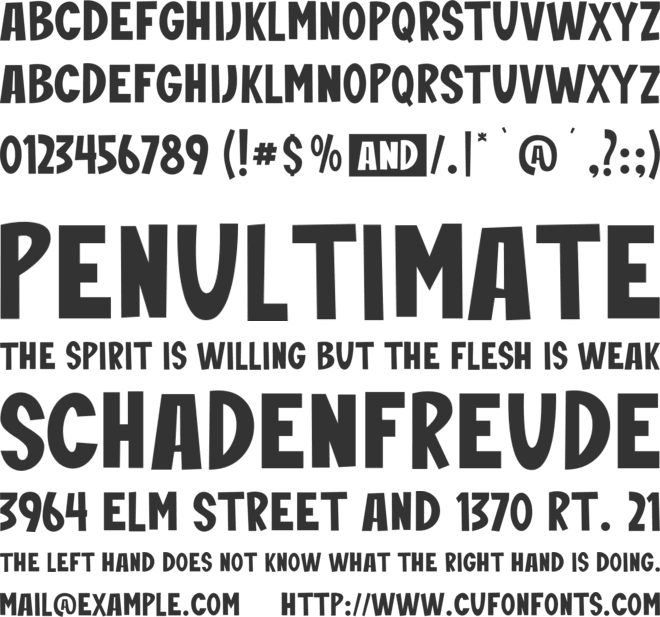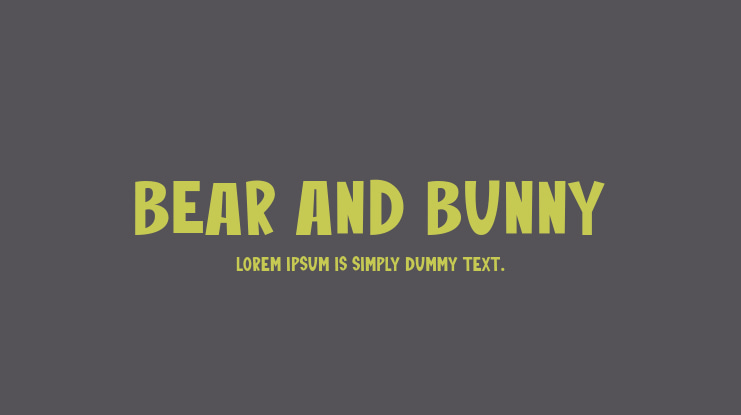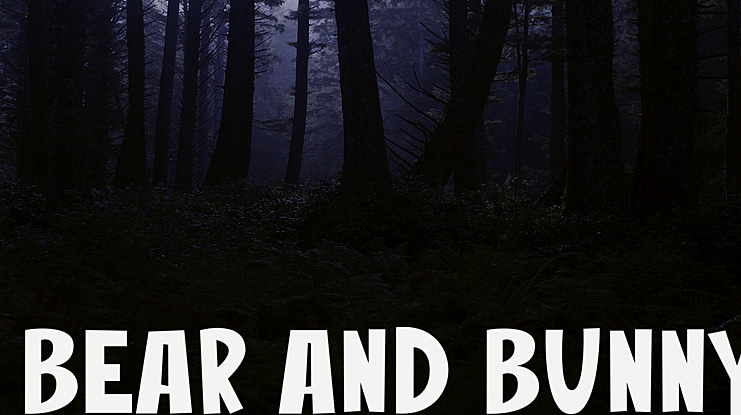
Bear And Bunny Font
Bear and Bunny is a fun and cartoon like display font. This font is perfect for children themed designs, especially when combined with bright colors.
The uppercase and the 4 sets of lowercase are slightly different. Mixing them in words will make it looks dynamic and natural.
The lowercase is set to cycle automatically.
Multilingual Support.